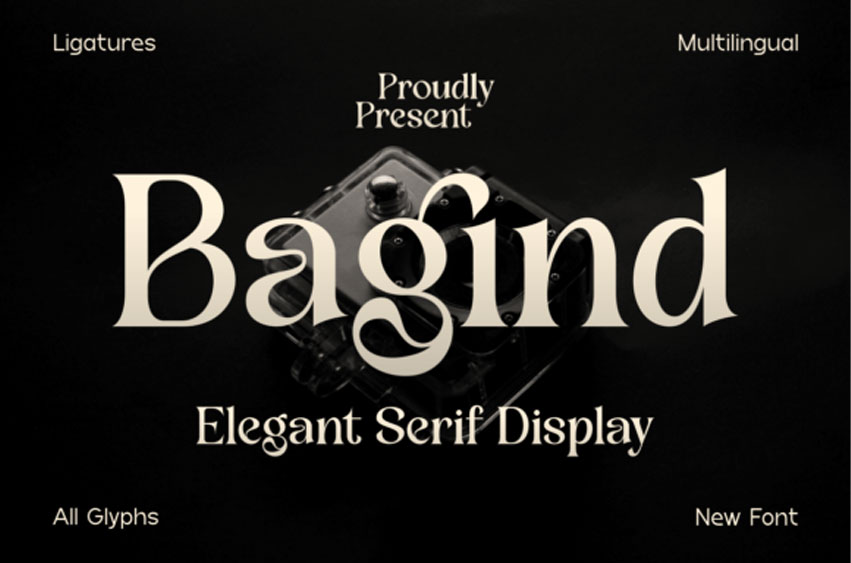
Bagind Font
Bagind Font is a stylish serif display font that combines elegance with classic design.
It features clean, sharp lines and decorative details, making it perfect for headlines, logos, posters, and any project that needs a touch of sophistication.